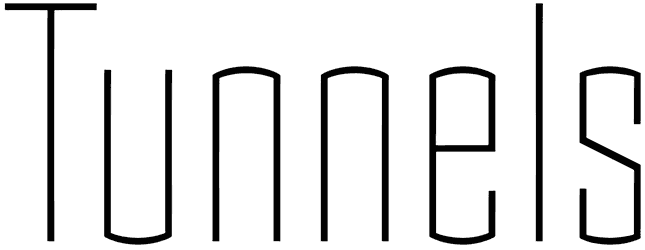
Neou Font
If you are facing the problem of a lack of proper fonts, using Neou can be a great solution. All characters of this sans serif font are designed in two different styles. Although this modern minimalist font does not support lowercase letters, it conveys a sense of respect and formality to the audience.
Designed by: Andre Uenojo